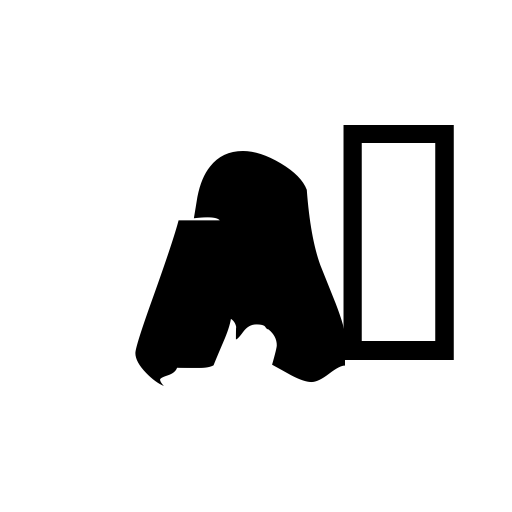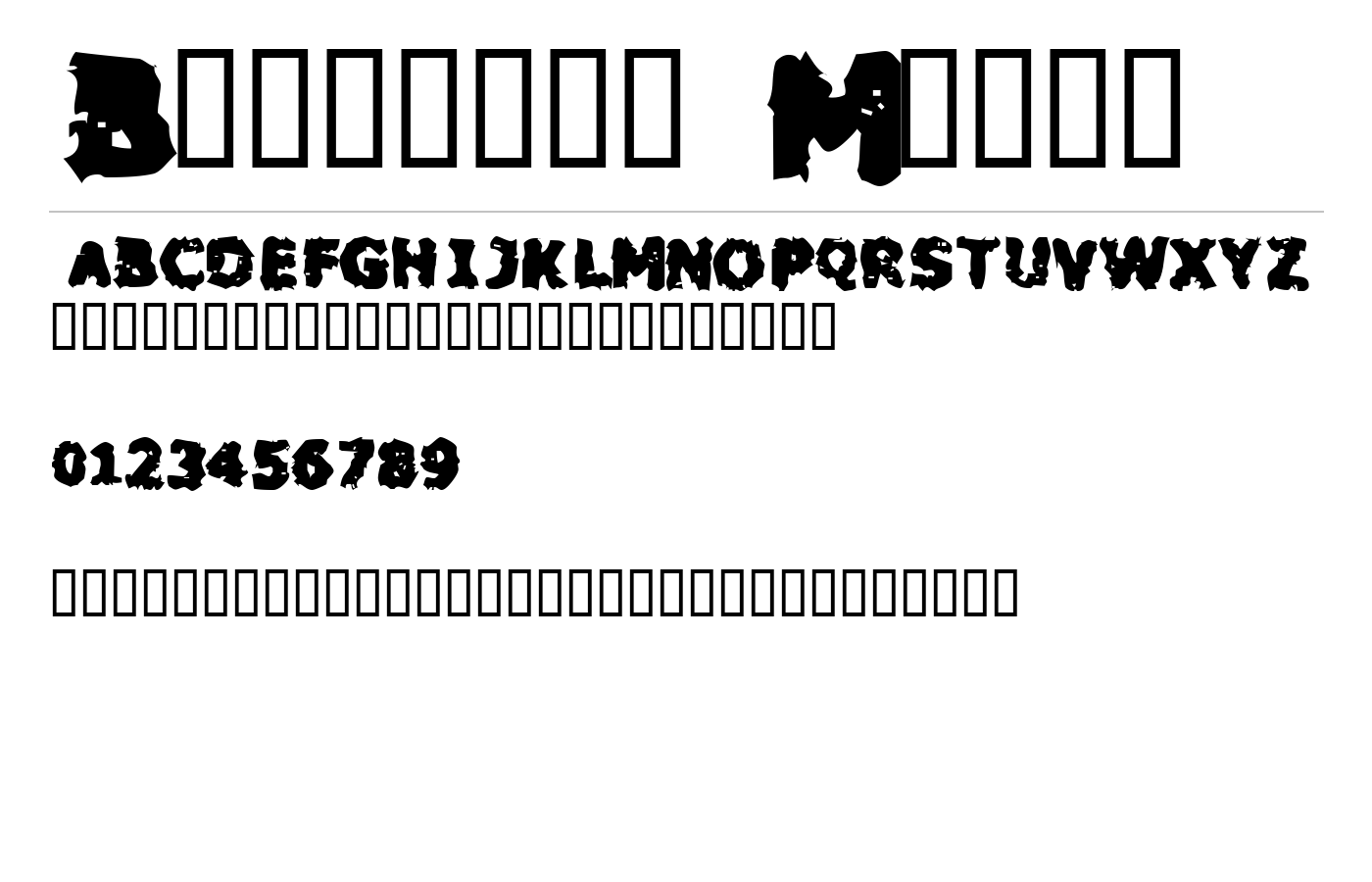
Blackfly Mambo is a bold, decorative display font with a playful and textured style that mimics rough, organic shapes within its chunky letterforms. Its heavy weight and irregular edges give it a striking, energetic personality perfect for eye-catching headlines, posters, or branding that seeks a lively, unconventional vibe. This font works well for creative projects needing a strong, standout presence rather than long passages of text.
Blackfly Mambo Font
About Blackfly Mambo Font